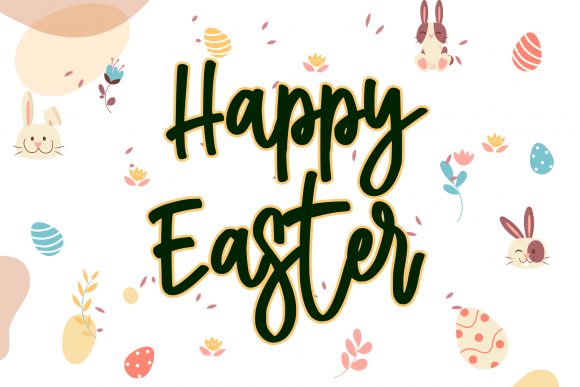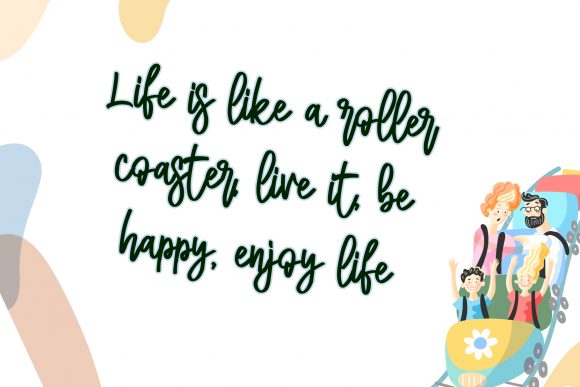
Just Simple Font
db-ku.com - Script & Handwritten -- Just Simple is a natural and friendly handwritten font. No matter the topic, this font will be an incredibly asset to your fonts’ library, as it has the potential to elevate any creation.